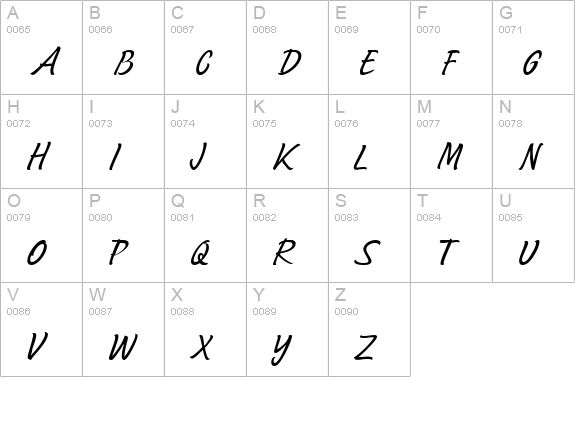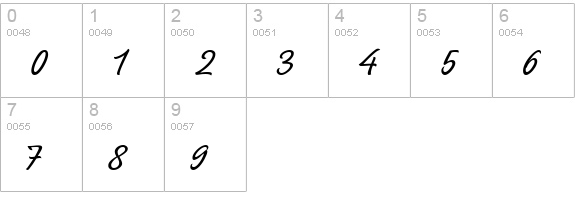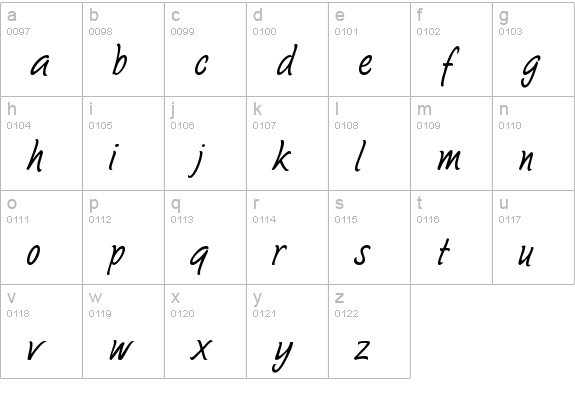
Sayer Script MN Light is a refined, elegant variant in the Sayer typeface family \xE2\x80\x94 well suited to elegant body text, refined sub-headings, and luxury branding.
Sayer Script MN Light font is a charming and elegant typeface designed with a delicate touch. Its flowing lines and intricate details make it perfect for adding a touch of sophistication to any design project. This beautiful font exudes a sense of grace and beauty, making it ideal for wedding invitations, elegant branding, and other creative endeavors. And the best part? Sayer Script MN Light font is available for free download at FontsMarket.com! You can easily access this stunning typeface to enhance your projects and bring a touch of elegance to your designs. Don't miss out on this opportunity to elevate your work with the timeless beauty of Sayer Script MN Light font.